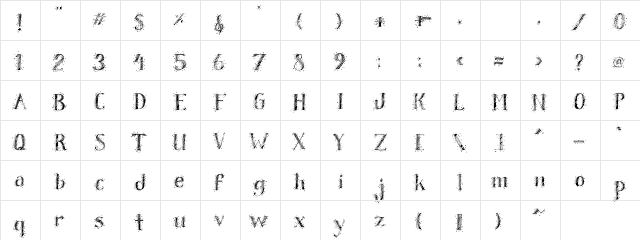
LOT Sprinkle Regular
Design Context for LOT Sprinkle Typeface
LOT Sprinkle is a composed and adaptable typeface that performs quietly and consistently across a wide range of design contexts.